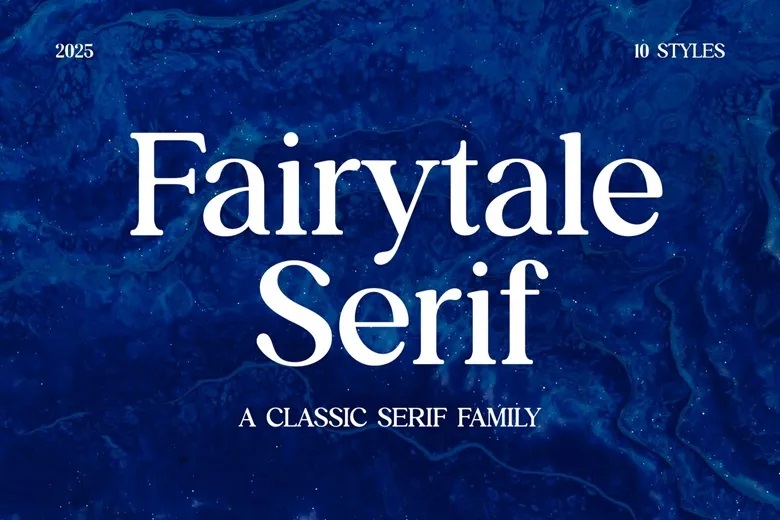
Fairytale Serif Font
Fairytale Serif is a classic serif family font with a modern look that feels beautiful, classy, elegant, and stylish. It works well for many projects, including signatures, stationery, logos, weddings, typography quotes, magazine or book covers, website headers, and branding.
This font also fits fashion-related branding or editorial design, showing both masculine and feminine qualities.